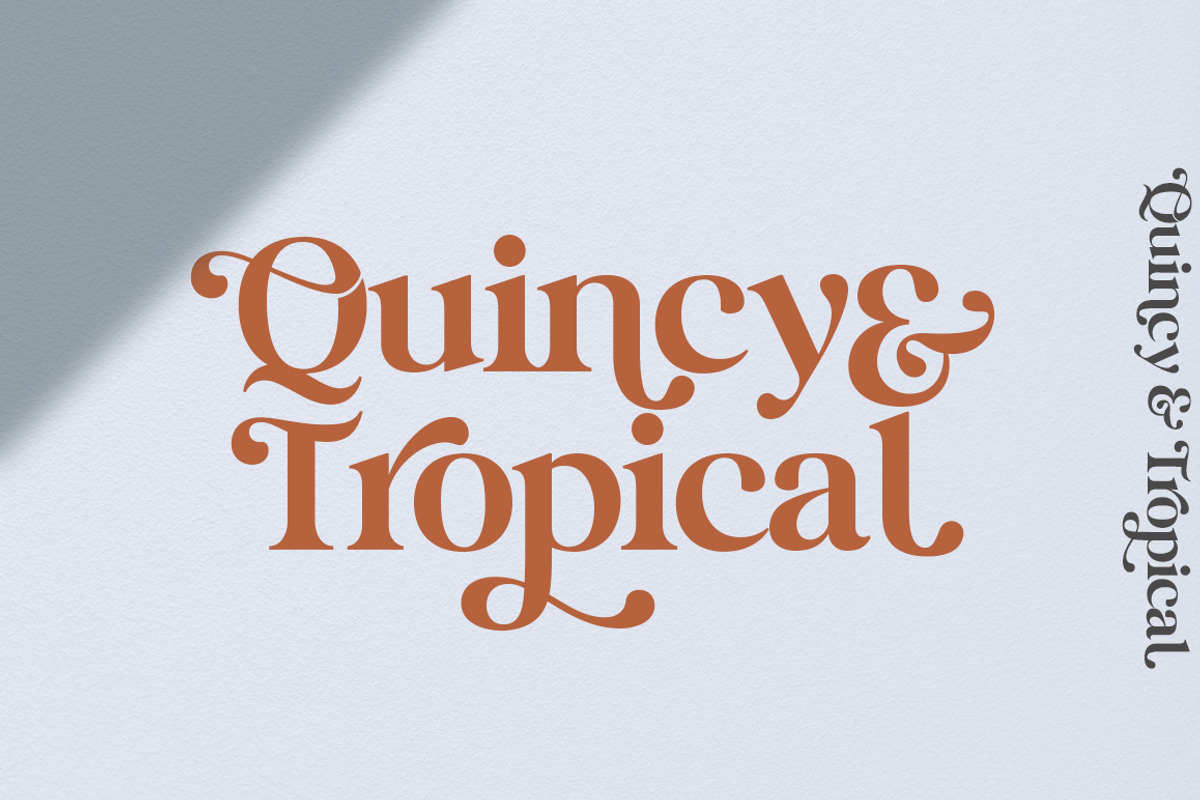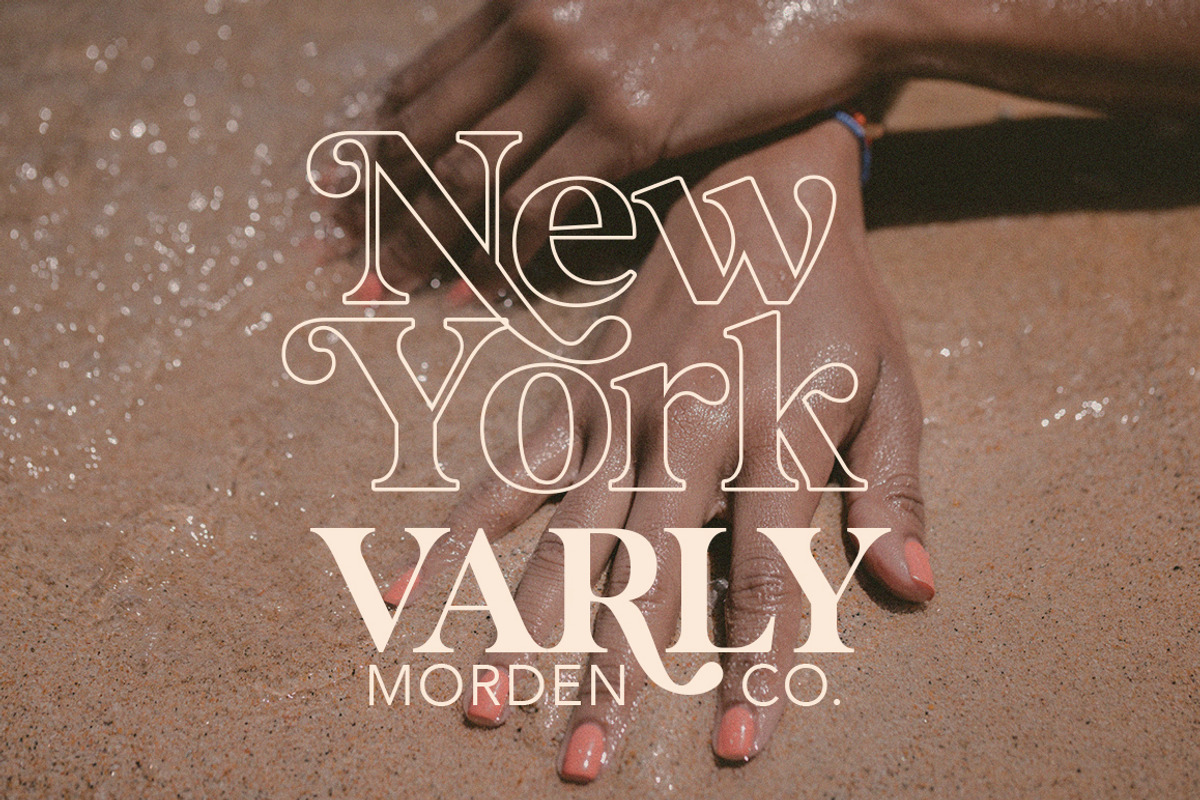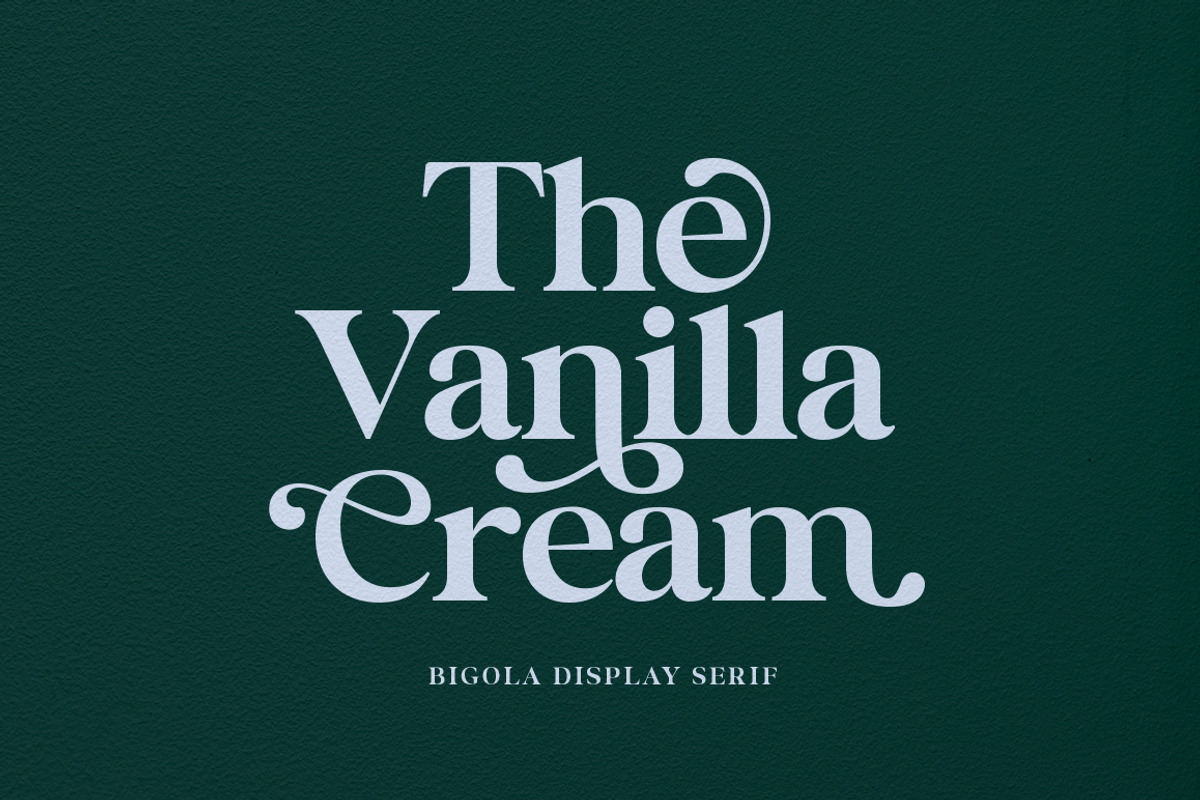
Bigola Font is a modern vintage serif font packaged in a modern and classy style, complete with access to your OpenType features to access a large selection of alternates letters and ligatures, the choice of letters you like from variations of uppercase and lowercase letters to get a display luxurious and elegant.
Unique, playful and versatile serif family with 14 ligatures and 170 alternates to beautify the design you like.
- Alternates and Ligatures